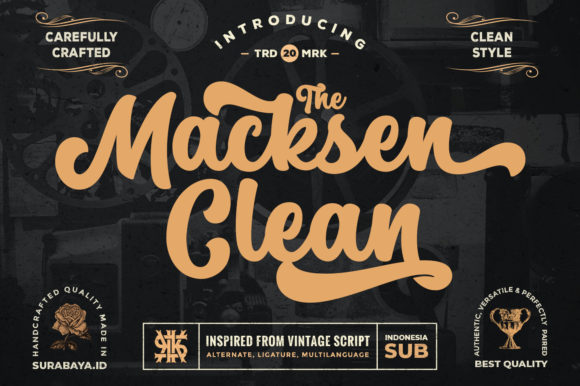
Prepare yourself to be captivated by The Macksen Font, a script font that exudes an aura of magic and nostalgia. This meticulously crafted masterpiece, hailing from the talented Kotak Kuning Studio, effortlessly blends the charm of timeless elegance with the authenticity of calligraphy. The result is a font that radiates classicism while maintaining a disarmingly friendly demeanor.
The Macksen Font is your ultimate tool for crafting designs that are both original and exceptional. Its versatility knows no bounds, making it the perfect choice for a wide range of projects. Whether you're designing invitations, greeting cards, posters, or any other creative endeavor, The Macksen Font will elevate your work to new heights.
Imagine your words taking on a life of their own, dancing across the page with an enchanting grace. The Macksen Font's carefully crafted characters possess an innate charm that will leave your audience spellbound. Its elegant curves and playful flourishes add a touch of whimsy to any project, evoking a sense of wonder and excitement.
With The Macksen Font, you have the power to transform ordinary text into captivating works of art. Its versatility allows you to seamlessly blend different styles, creating designs that are both visually stunning and emotionally resonant. The Macksen Font is your key to unlocking a world of creative possibilities, where your imagination knows no limits.